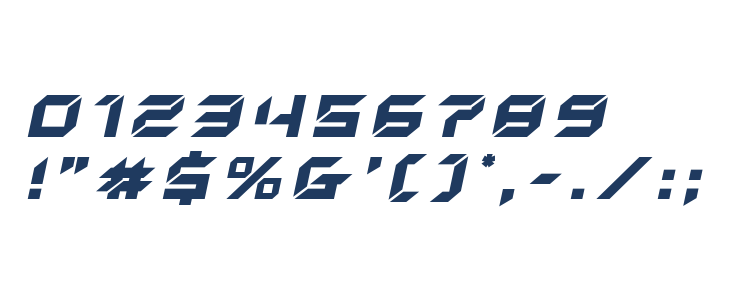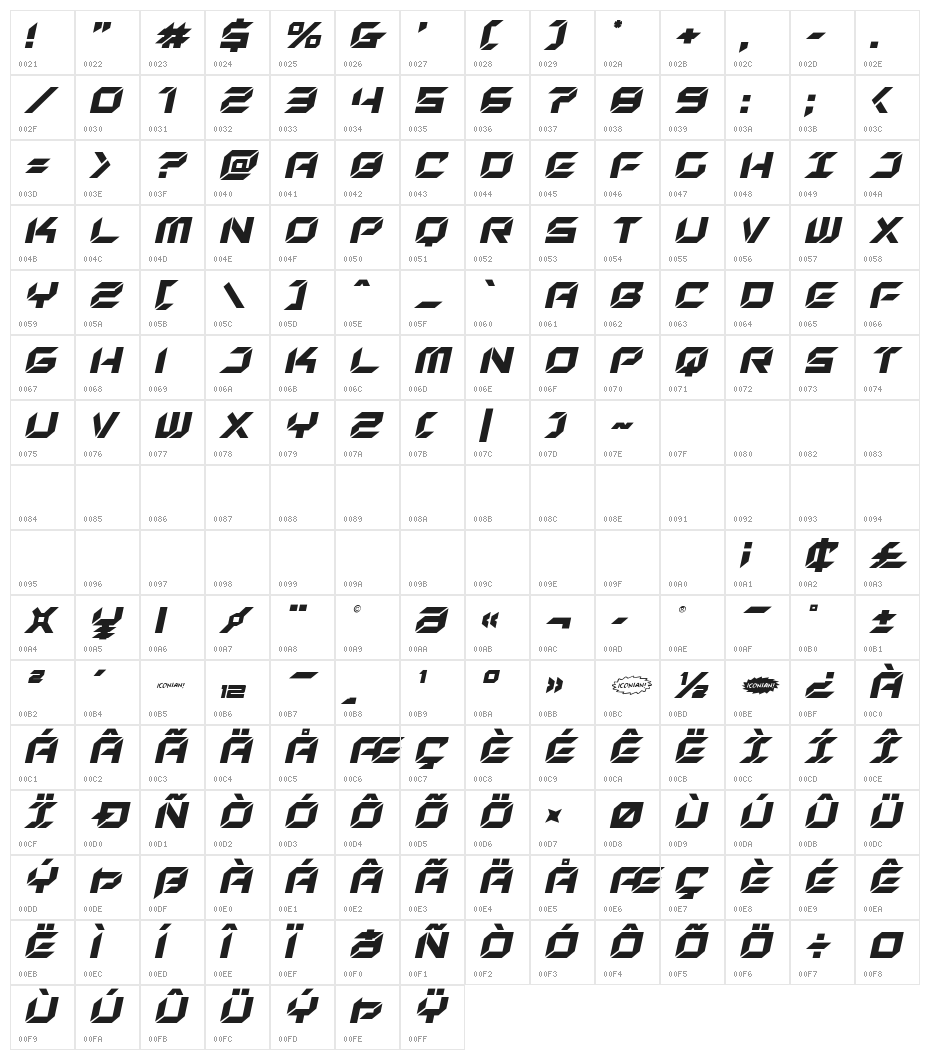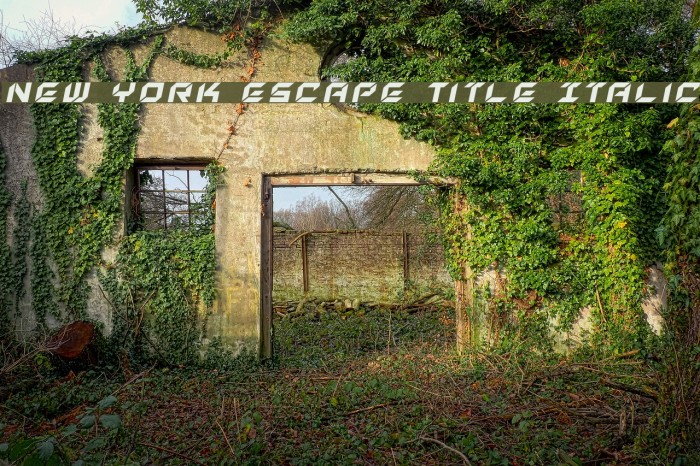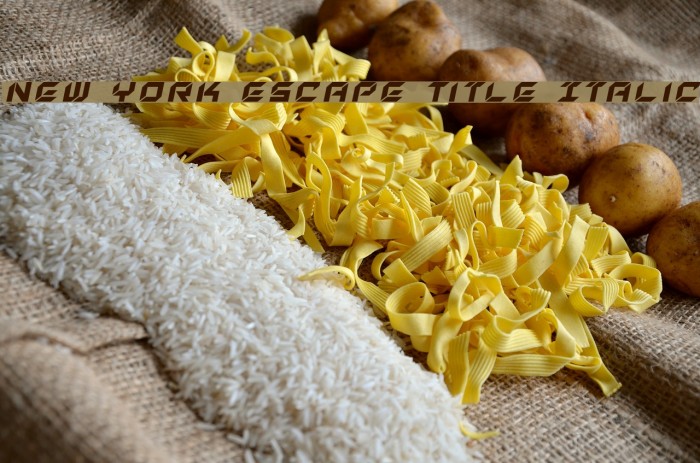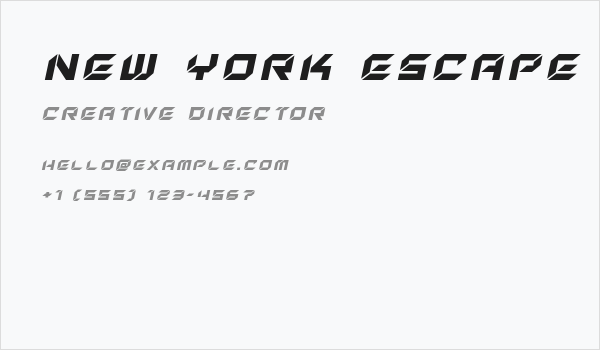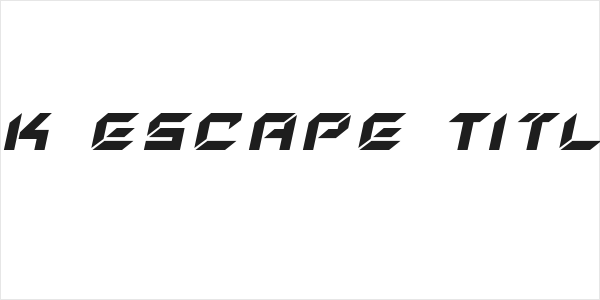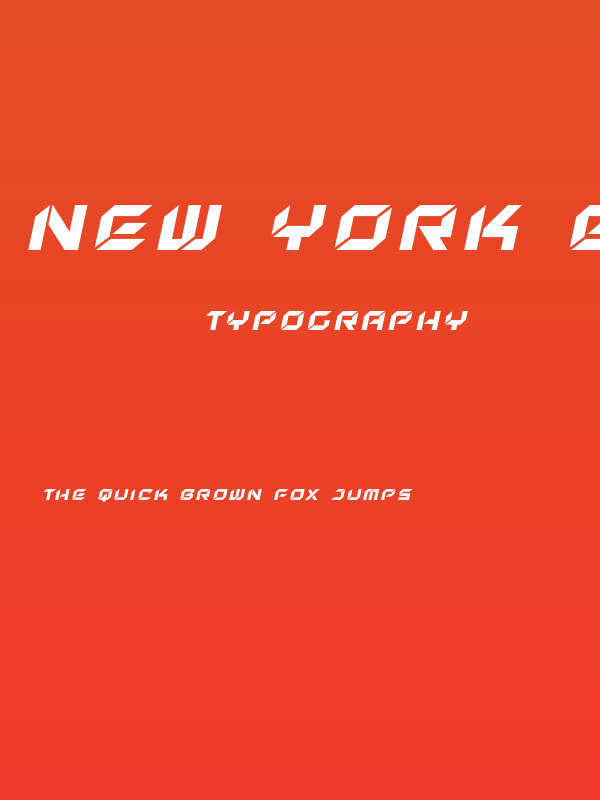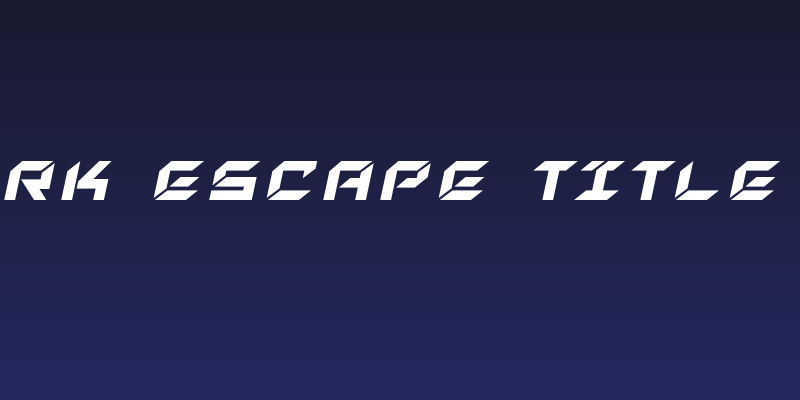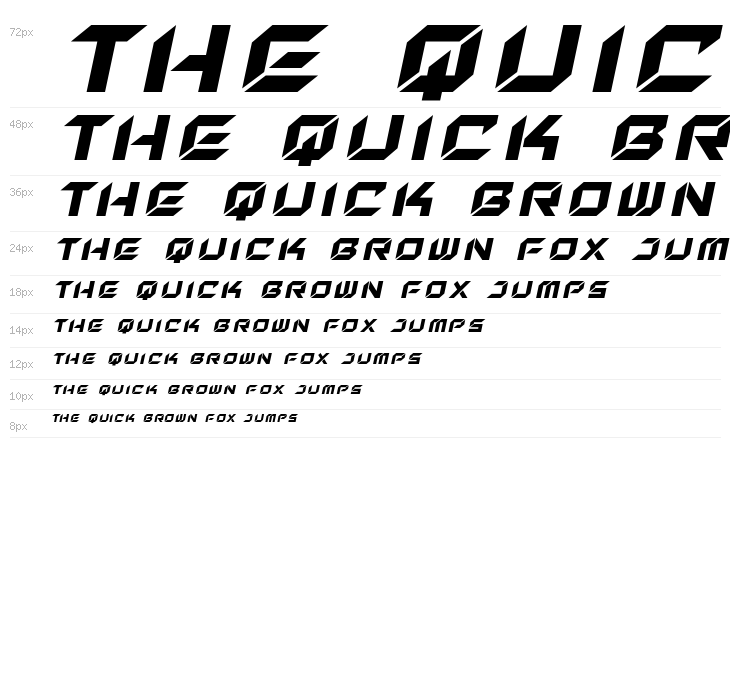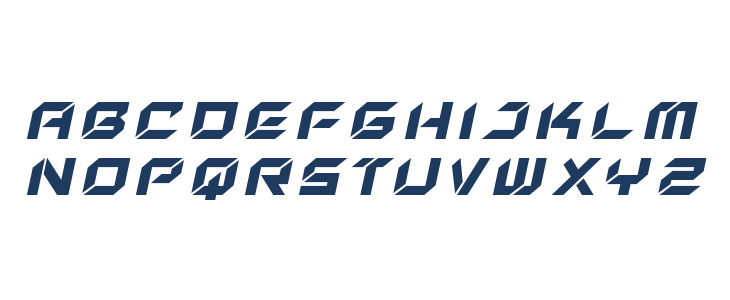
New York Escape Title Italic Font
New York Escape Title Italic Description
This font features a bold, angular design with a futuristic and dynamic appearance. The characters are sharply cut with geometric precision, giving them a distinct, edgy look. The italic slant adds a sense of motion and speed, making it ideal for projects that require a modern and energetic feel. The uppercase and lowercase letters maintain a consistent style, while the numerals and special characters are crafted to match the overall aesthetic. The font's unique style makes it stand out, perfect for eye-catching headlines or branding that demands attention.
| Proposed Projects | Ideal for sci-fi themed designs, video game titles, movie posters, and branding that requires a modern edge. |